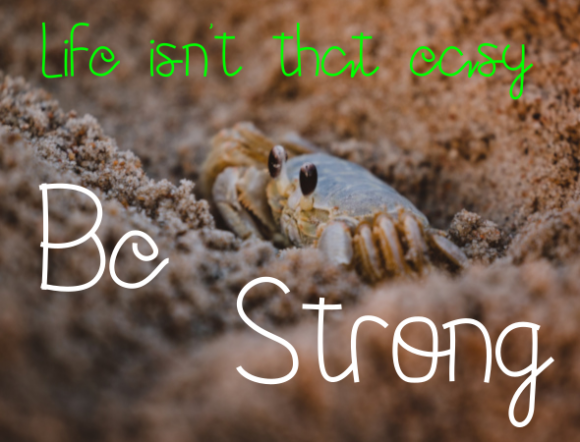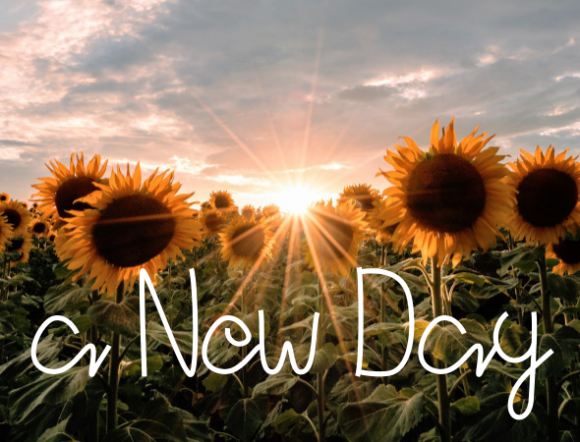
Introduction to Parramellow Font
Have you ever been working on a creative project, staring at a blank canvas, and suddenly, a spark of inspiration hits you? That’s exactly what happens when you come across the perfect design resource – a font that elevates your entire project. For many designers, that perfect font is the Parramellow Font.
This cute, simple, and thin lettered handwritten font is a breath of fresh air in the world of typography. Its sweet and friendly style makes it a wonderful choice for brightening up your designs, whether you’re working on a free download project or a high-quality print material. With its transparent background and delicate lines, the Parramellow Font is sure to add a touch of whimsy to your creative project.
Key Features of Parramellow Font
- Parramellow Font is a high-quality, unique design resource ideal for creative projects that require a touch of elegance.
- The font features a transparent background, making it easy to integrate into any design project without any visual clutter.
- This font is perfect for designers looking for a unique, high-quality font to add a creative touch to their projects.
- Parramellow Font is a valuable design resource that can be used in a variety of creative projects, from logos and branding to typography and graphics.
Honest Review: Parramellow Font
I recently came across the Parramellow Font and was excited to give it a try. As a designer, I’m always on the lookout for high-quality design resources to enhance my creative projects.
What works well about the Parramellow Font is its unique and elegant style. It’s perfect for headings and titles, and its transparent background makes it easy to pair with any design. The font is also free to download, which is a big plus in my book.
Here are some of the key features that I appreciate about the Parramellow Font:
- ✨ Unique and elegant style
- ⚠️ Limited font sizes available
- ⚠️ May not be suitable for large blocks of text
Overall, I’m really impressed with the Parramellow Font. It’s a great addition to my design resource library, and I’m excited to see how I can use it in my future creative projects.
Parramellow Font
The Parramellow Font is a high-quality, free download design resource ideal for creative projects. Its transparent background makes it perfect for overlaying on images or using as a standalone element.
Tips for Getting the Most Out of Parramellow Font
To get the most out of the Parramellow Font, use it in combination with other design elements, such as images or graphics. Experiment with different font sizes, colors, and arrangements to create unique and eye-catching designs.
The Parramellow Font is ideal for various creative projects, including:
- Presentation designs
- Logo designs
- Business reports
Alternatives to Parramellow Font
Great Vibes Font is a high-quality, elegant script font perfect for creative projects that require a touch of sophistication. It’s ideal for wedding invitations, branding, and other design elements that need a refined look.
Great Vibes Font is a great alternative to Parramellow Font for designers who want a more subtle, yet still stylish, option. While Parramellow Font is more playful, Great Vibes Font is more refined, making it suitable for a wider range of design projects.
Alex Brush Font is a beautiful, handwritten font that’s perfect for adding a personal touch to design projects. It’s great for creating a sense of warmth and approachability, making it ideal for branding, marketing materials, and other design elements that need to connect with the audience.
Alex Brush Font is a great alternative to Parramellow Font for designers who want a more whimsical, yet still high-quality, option. While Parramellow Font is more modern, Alex Brush Font is more traditional, making it suitable for projects that require a classic feel.
Does the Parramellow Font have a transparent background?
No, the Parramellow Font does not have a transparent background. However, it can be used with a transparent background in design software that supports this feature, such as Adobe Illustrator or Photoshop. This allows for seamless integration with other design elements and a high-quality finish for your creative project.